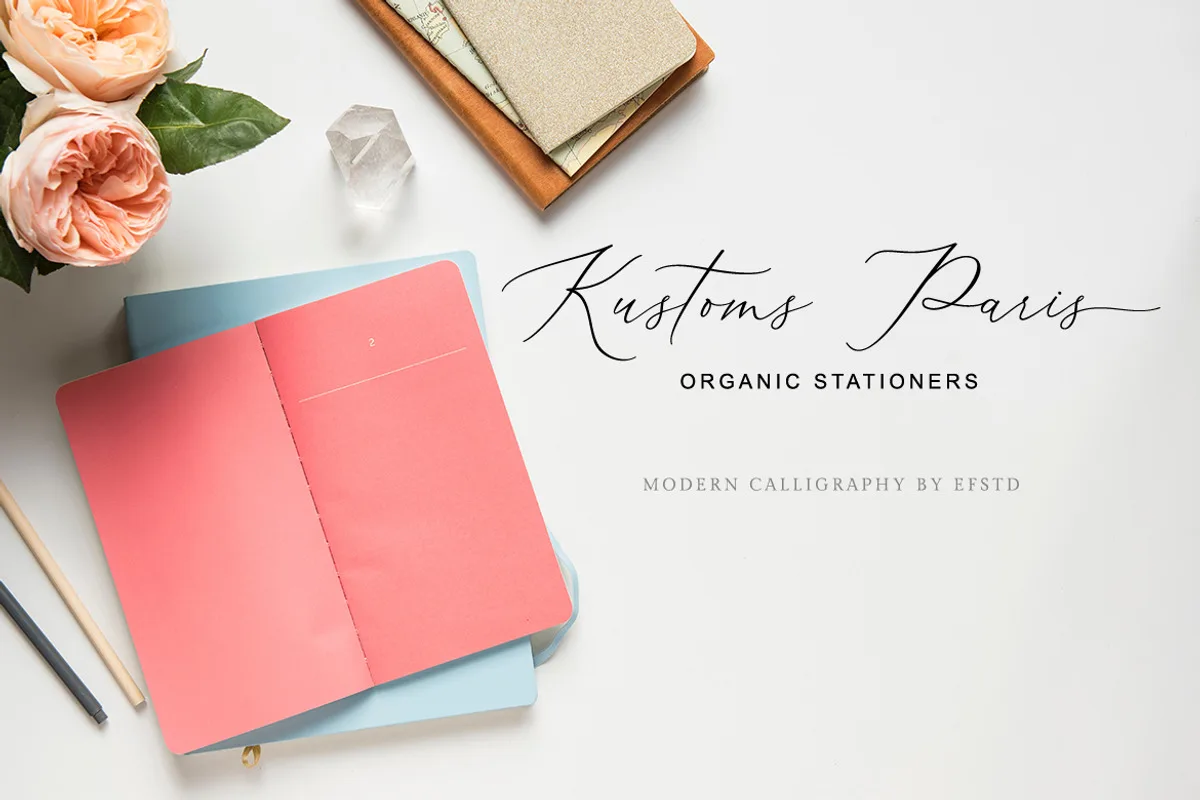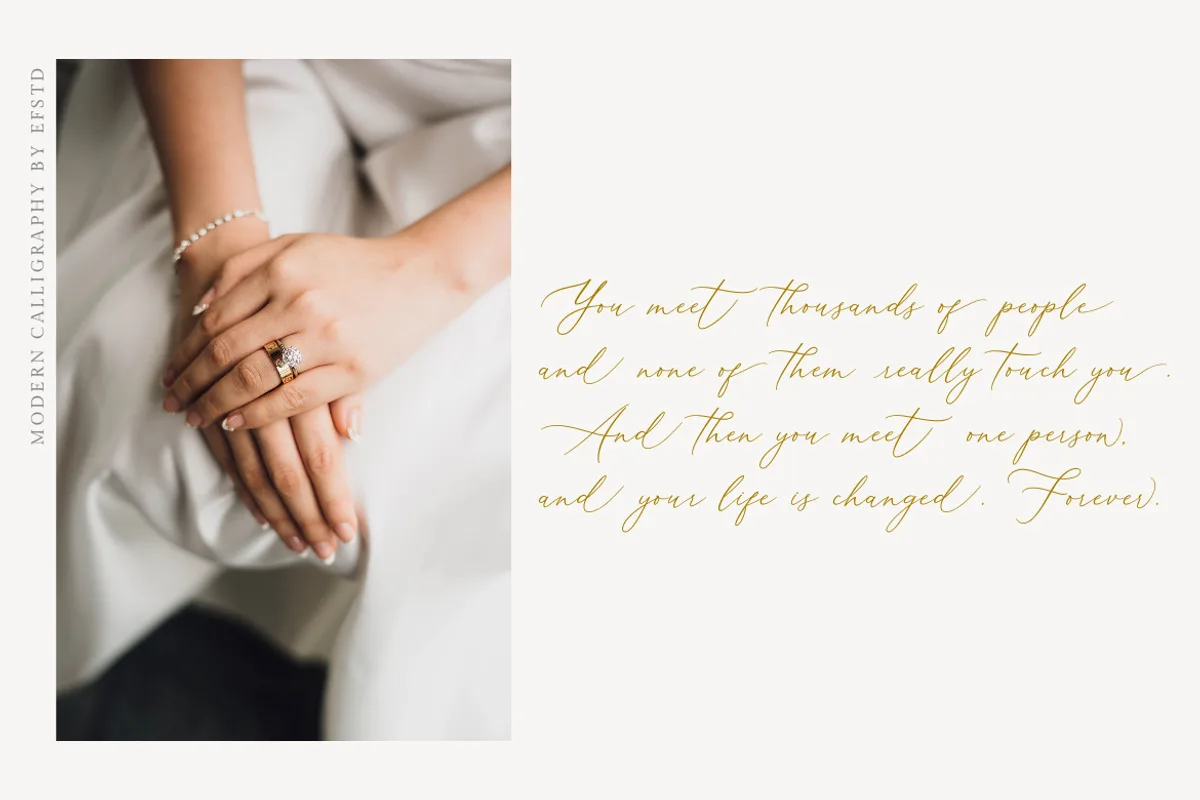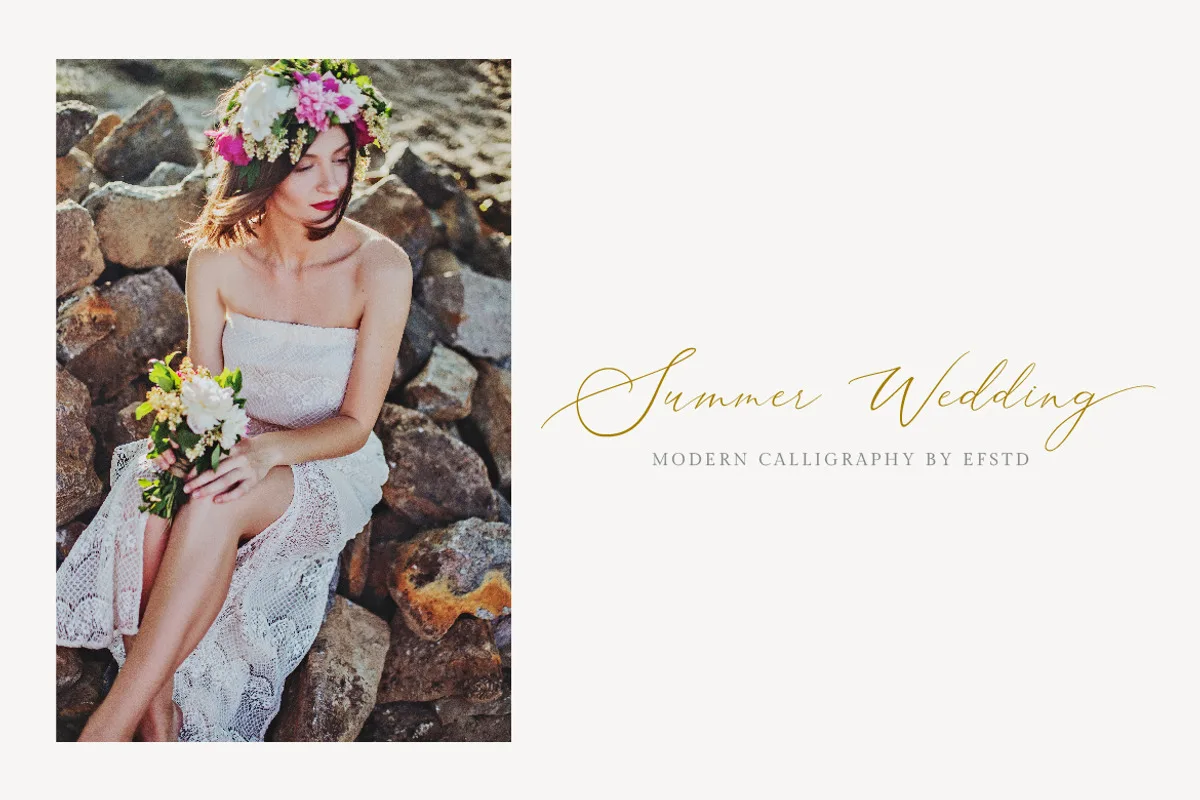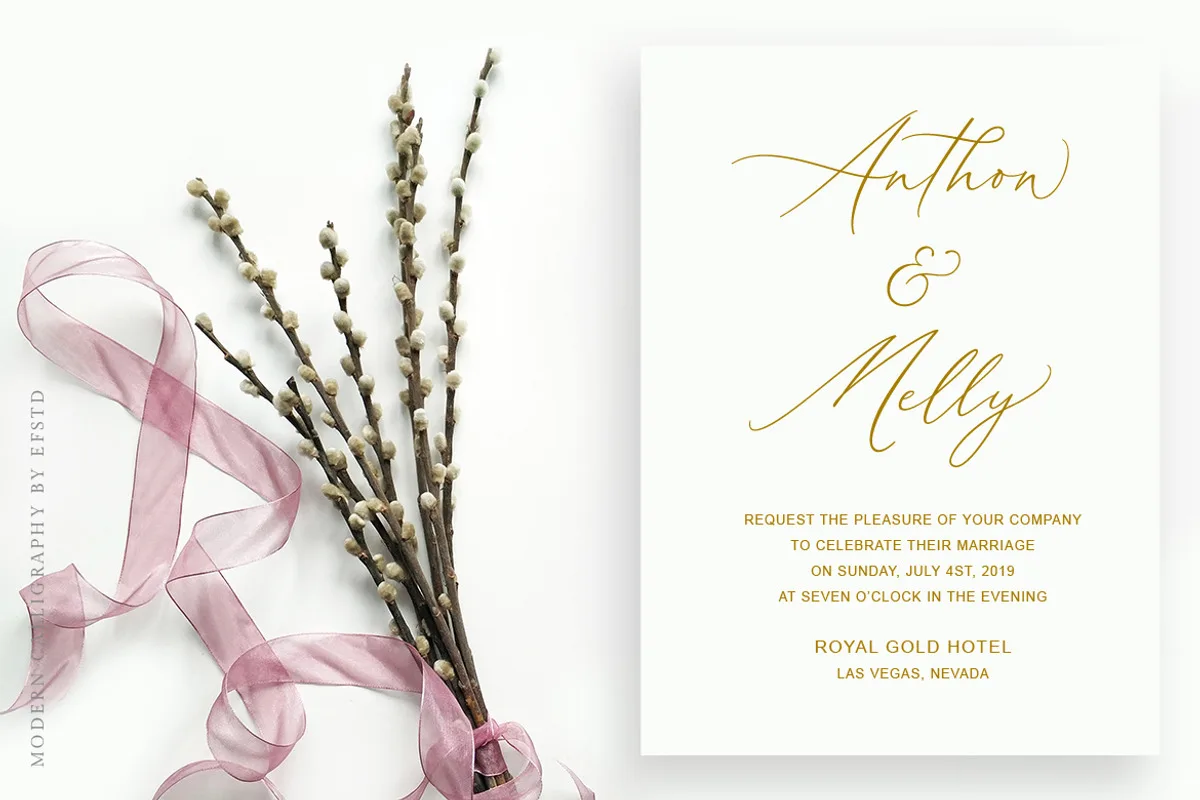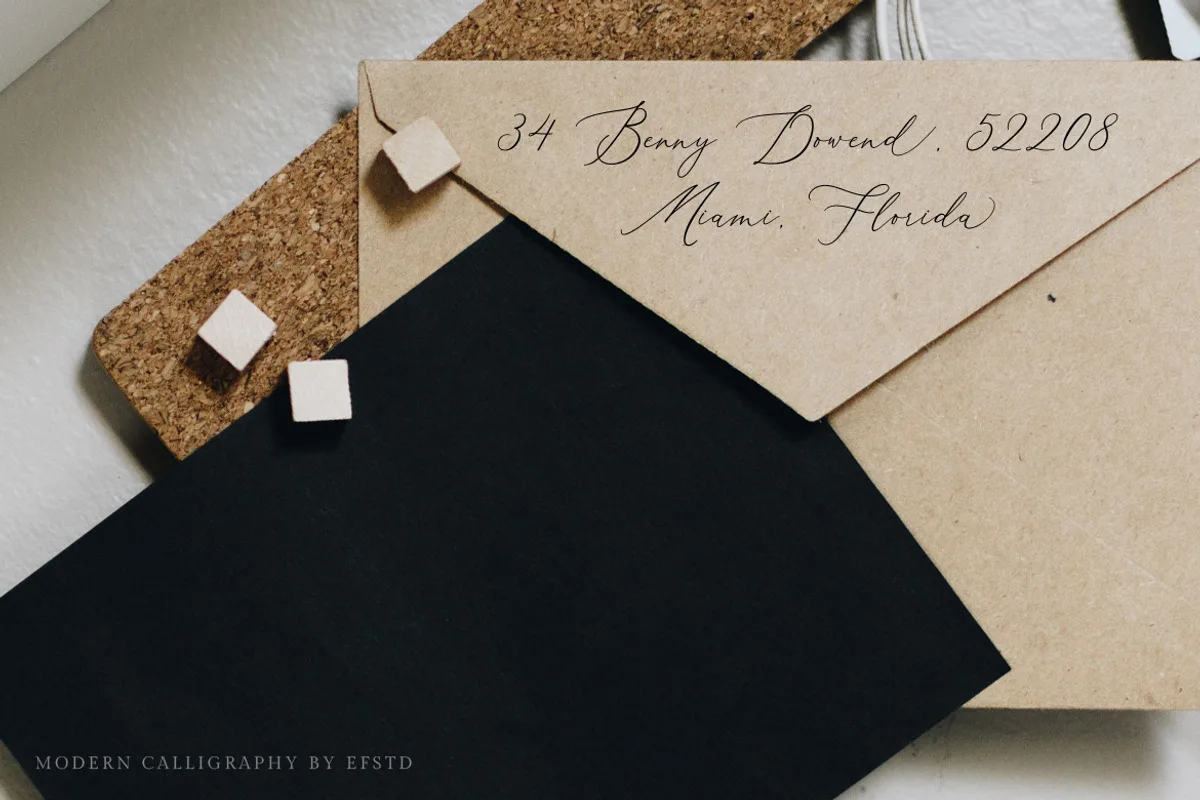
Introducing Aerotis, a classy modern calligraphy font, Aerotis is perfect for invitations, branding, websites, red wine labels, and editorial designs. Includes all upper and lower case letters, multilingual support, punctuation, binding and initial and final swash. everything can be easily accessed using software that supports OpenType. Like Adobe Indesign, Adobe Illustrator CS, Adobe Photoshop CC, and Corel Draw.